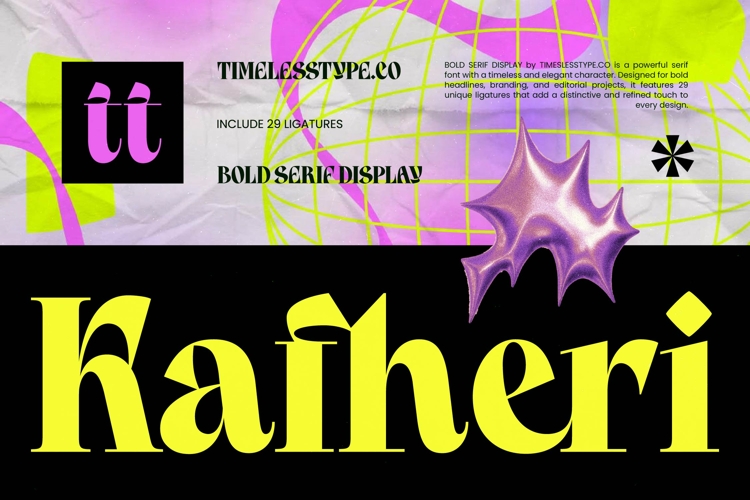
Kafheri - Bold Tall Serif
Elevate your design aesthetic with a typeface that defines modern elegance. Kafheri - Bold Tall Serif is a sophisticated display typeface that commands attention with its high-contrast strokes and elegant verticality. Designed for maximum impact, Kafheri - Bold Tall Serif balances traditional serif roots with a contemporary edge, making it the ultimate choice for designers seeking a bold, refined silhouette.
Unlock unparalleled creative freedom with a rich suite of professional typographic features. This powerhouse includes 29 unique ligatures, allowing you to create custom-looking layouts with ease. Kafheri - Bold Tall Serif transforms standard text into striking visual art, providing a distinctive and refined touch to every project. Its strong geometric foundation ensures that Kafheri - Bold Tall Serif remains legible while pushing the boundaries of editorial sophistication.